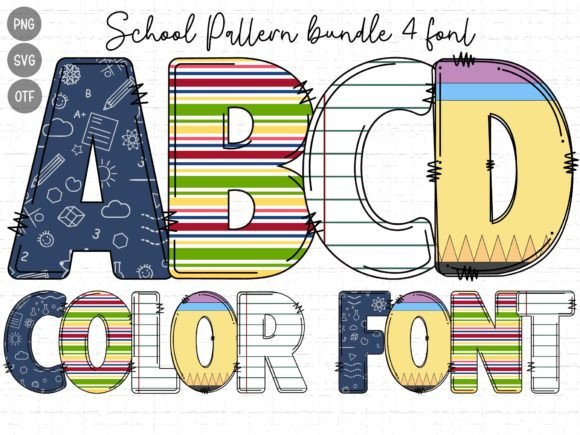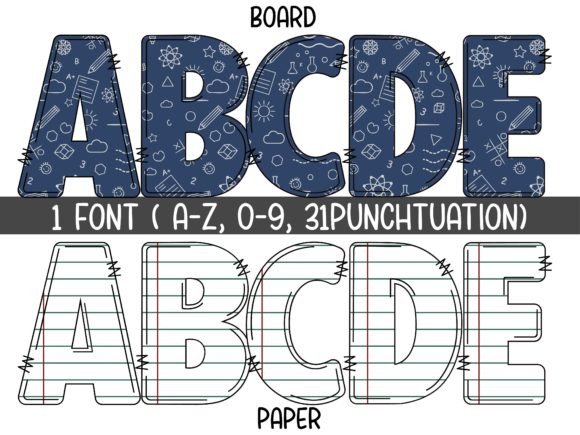
School Pattern Font
School Pattern is a cute and fun color font. It embodies playfulness and authenticity and is the perfect choice for any children’s activity or school project. Add this chunky lettered font to your designs and notice how it makes them come alive.